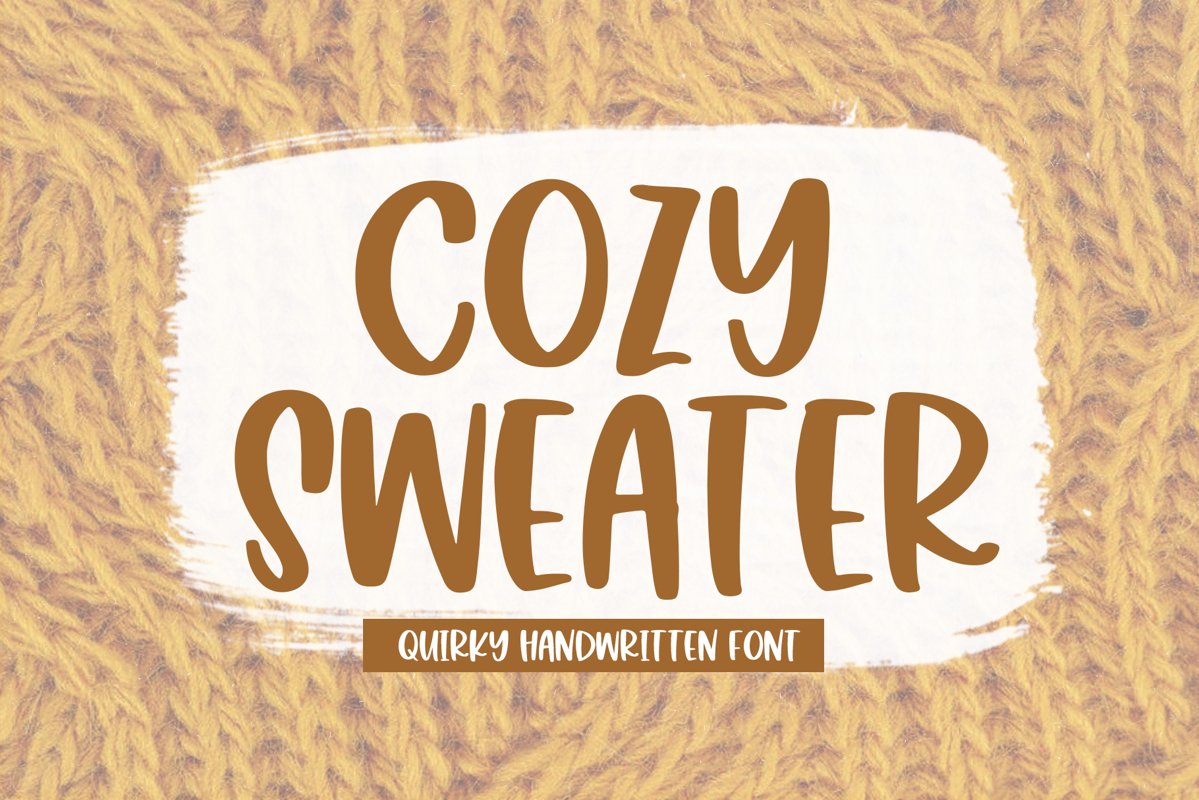
Cozy Sweater is a fun and quirky handwritten font!
This font is perfect for quotes, shirt designs, websites, branding, children's designs, svg designs, blogs, logos, invitations and more!